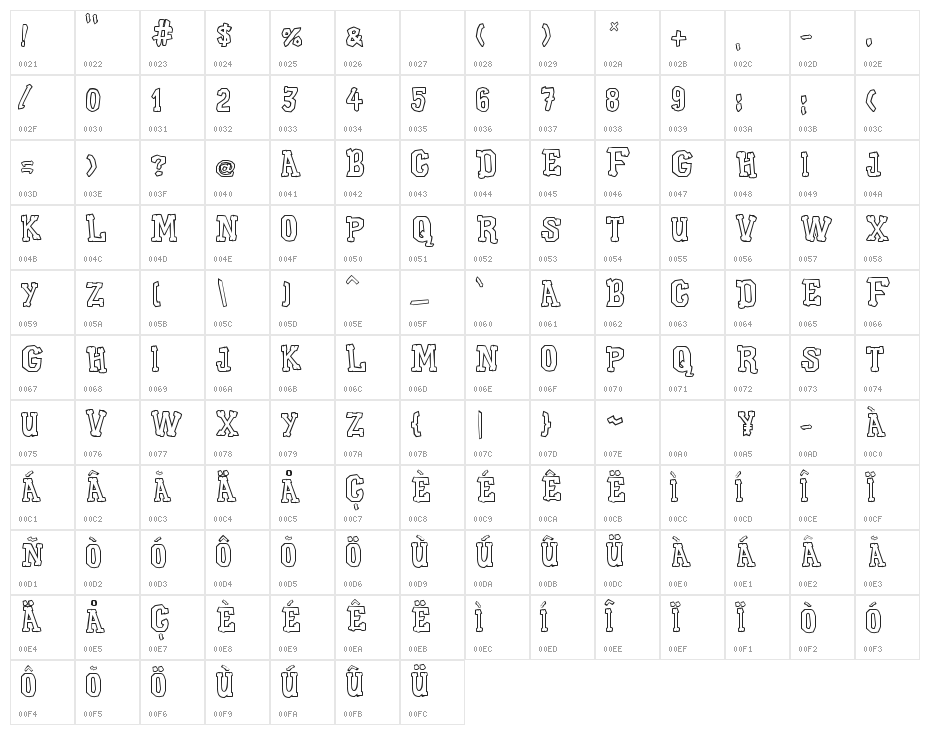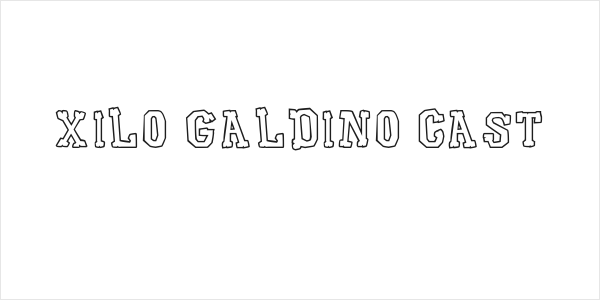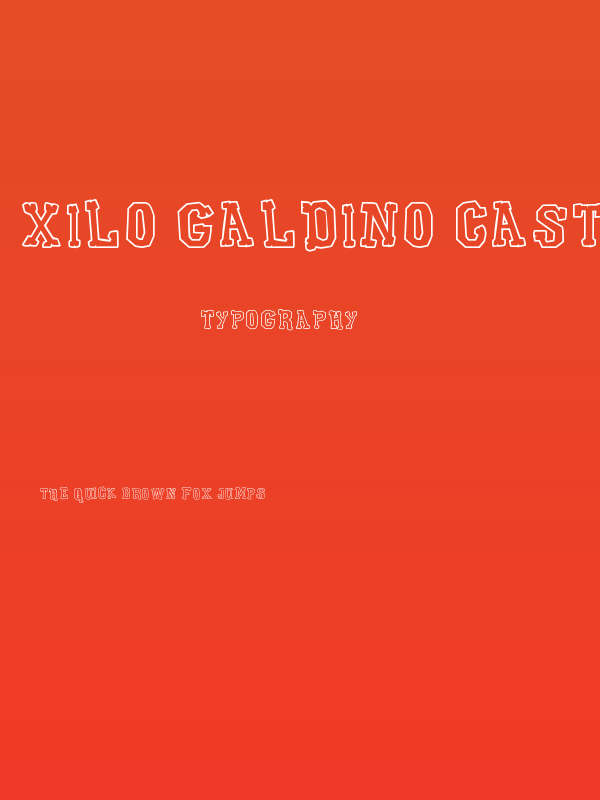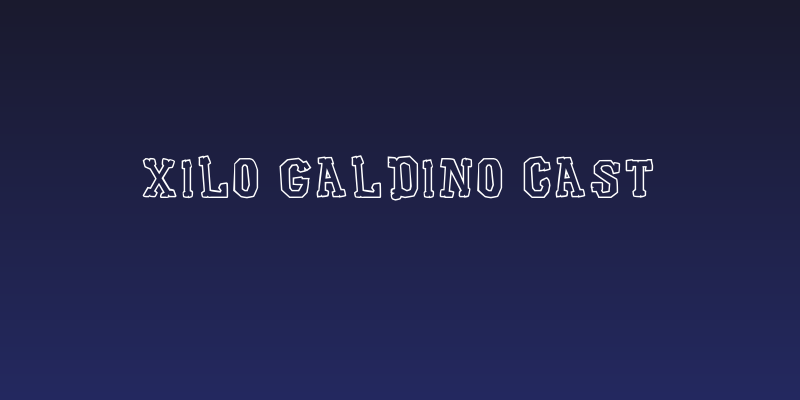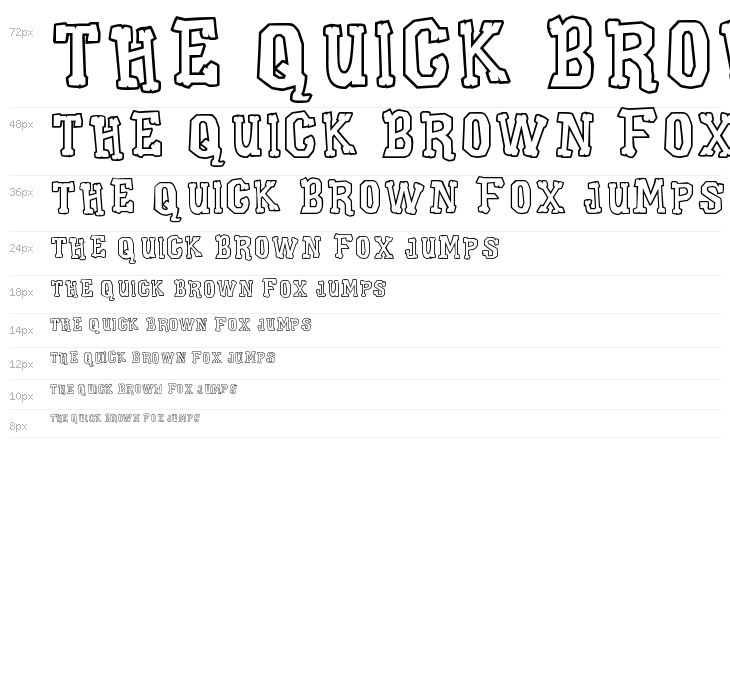
Xilo Galdino Cast Font
Xilo Galdino Cast Description
This font features a bold, decorative style with a unique outline effect that gives each character a three-dimensional appearance. The uppercase and lowercase letters maintain a consistent design, with sharp angles and a slightly rugged texture that adds a handcrafted feel. The numbers and special characters follow the same aesthetic, ensuring a cohesive look across all elements. The font's playful yet structured design makes it stand out, ideal for projects requiring a strong visual impact. Its distinct style is reminiscent of vintage signage, making it suitable for creative and artistic applications.
| Overall Style | Vintage, Decorative |
| Proposed Projects | Ideal for posters, logos, branding, and any project needing a bold, artistic touch. |